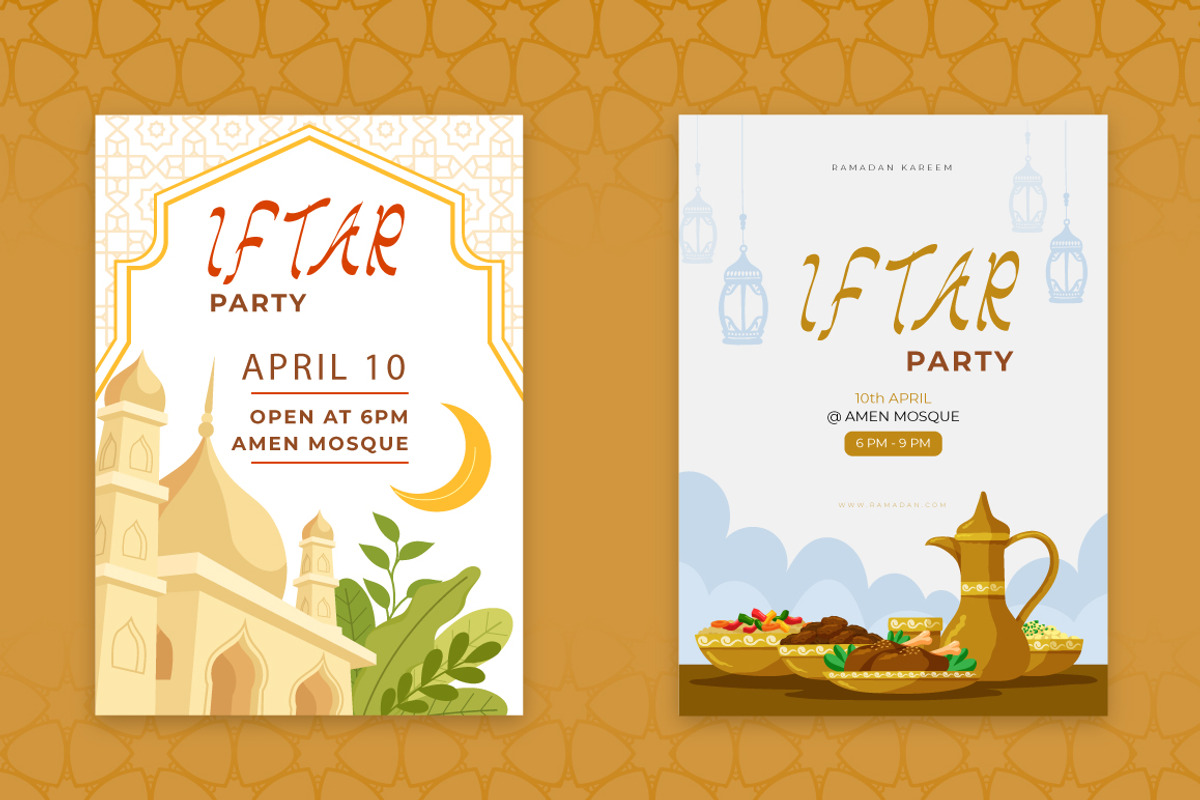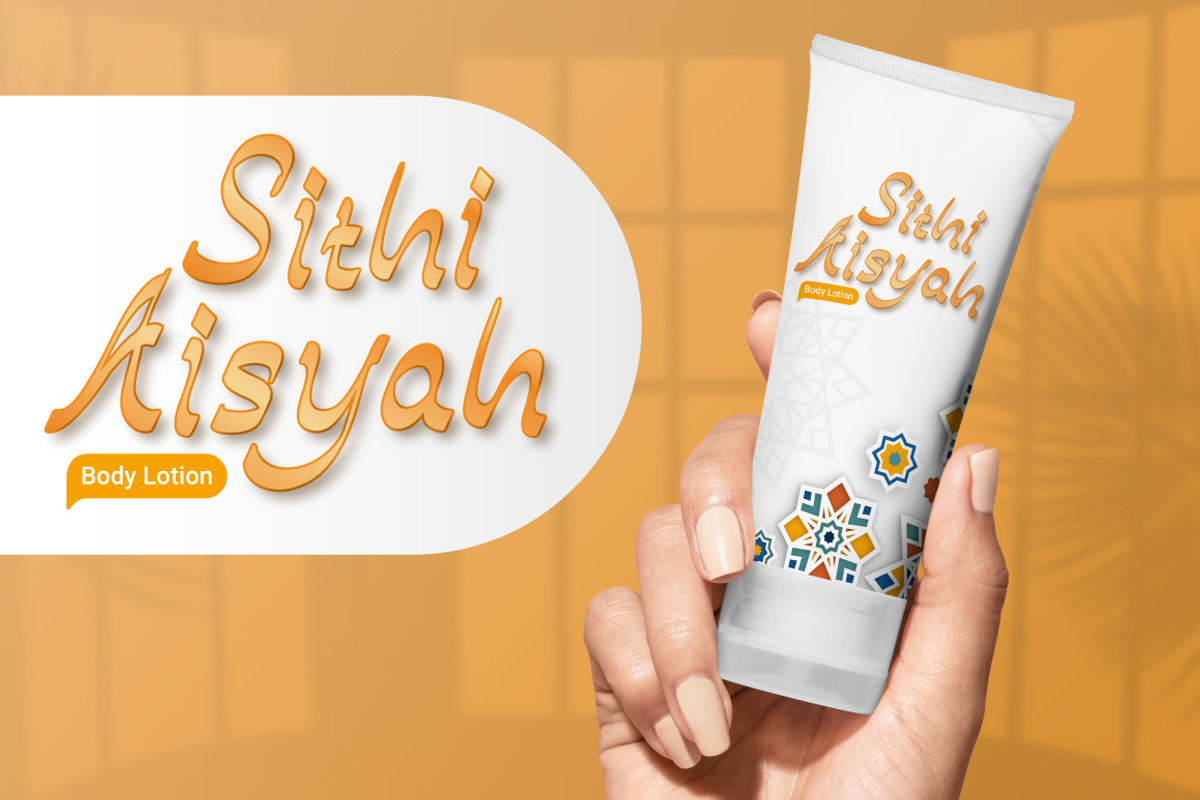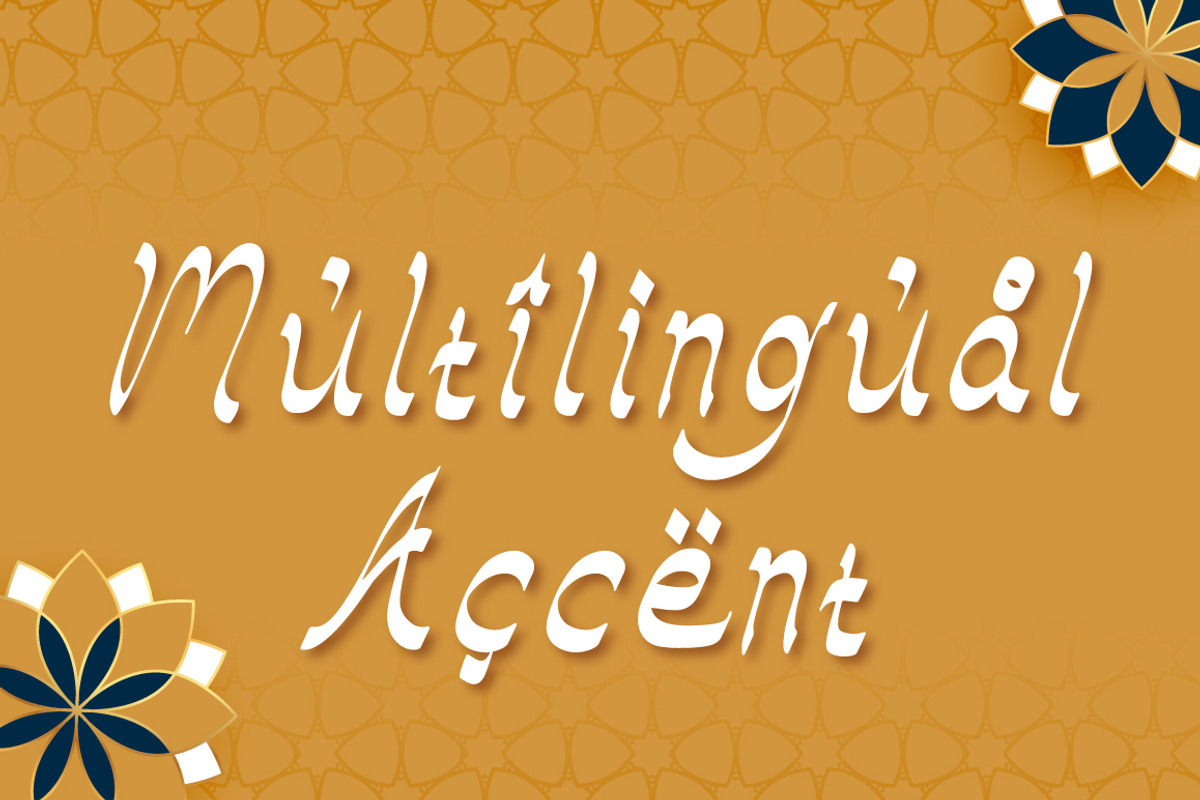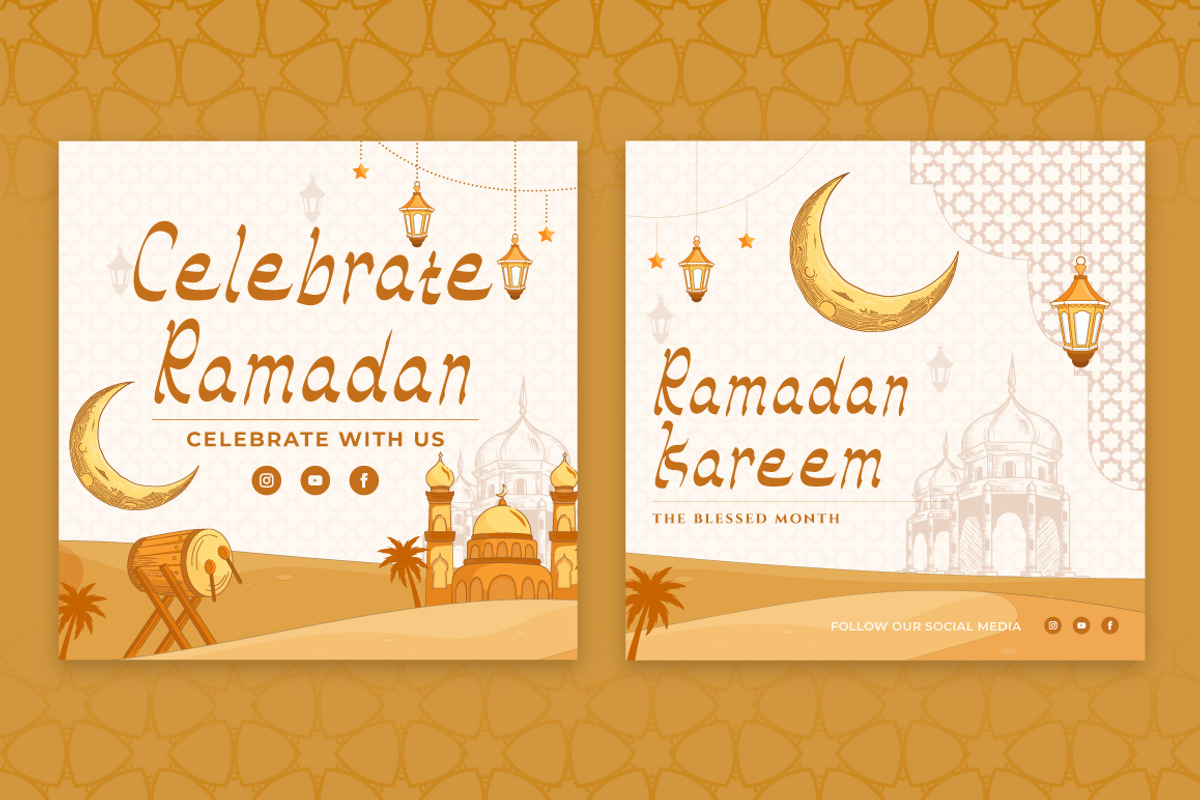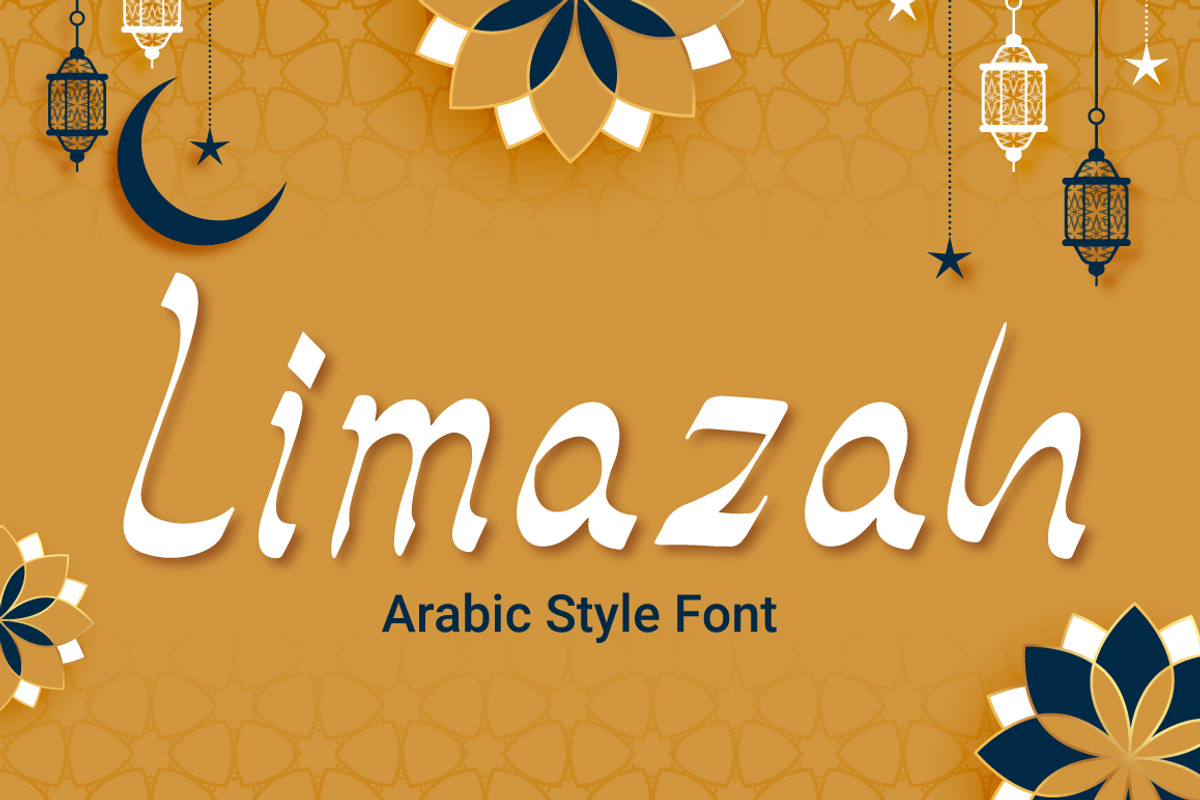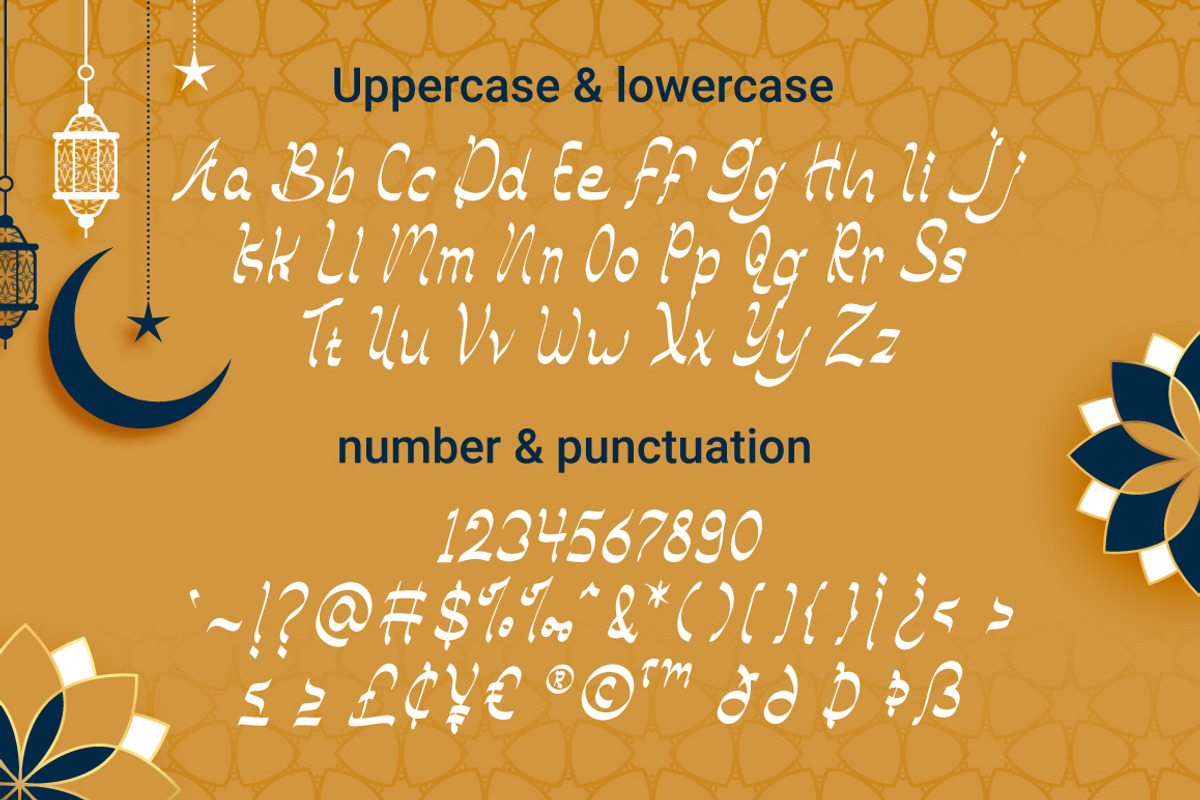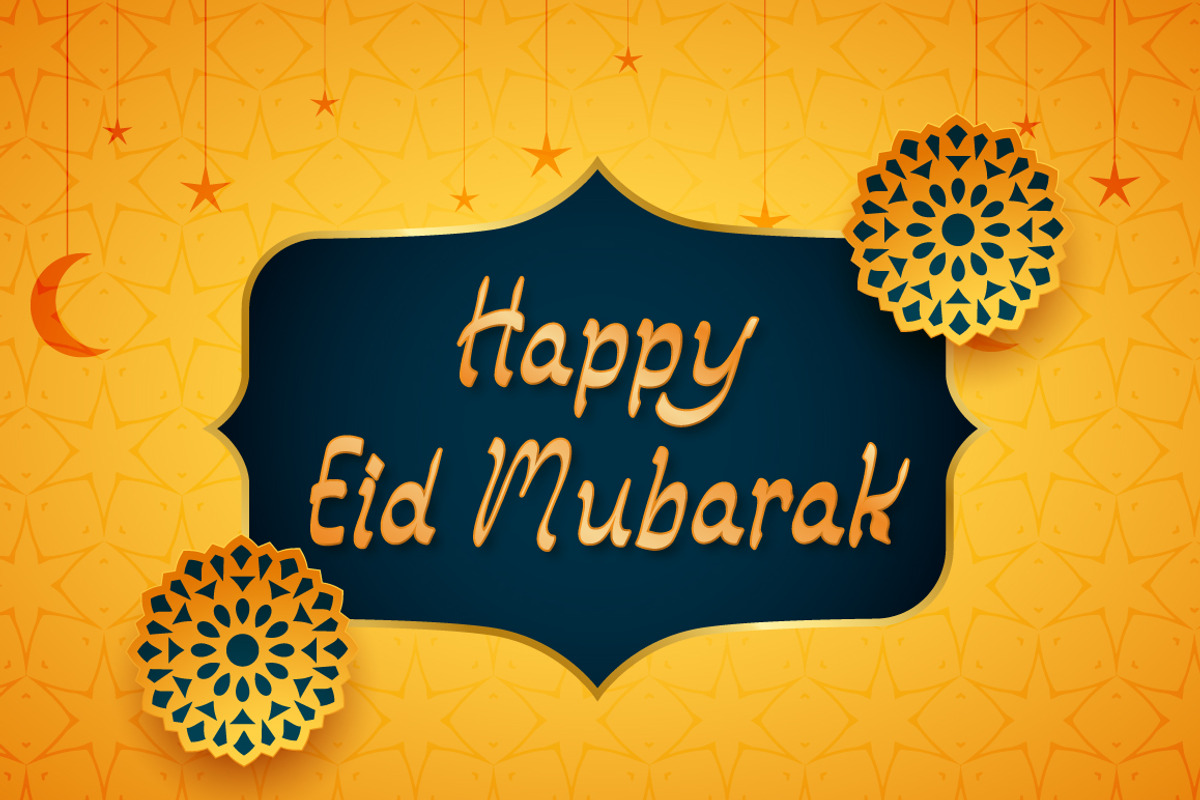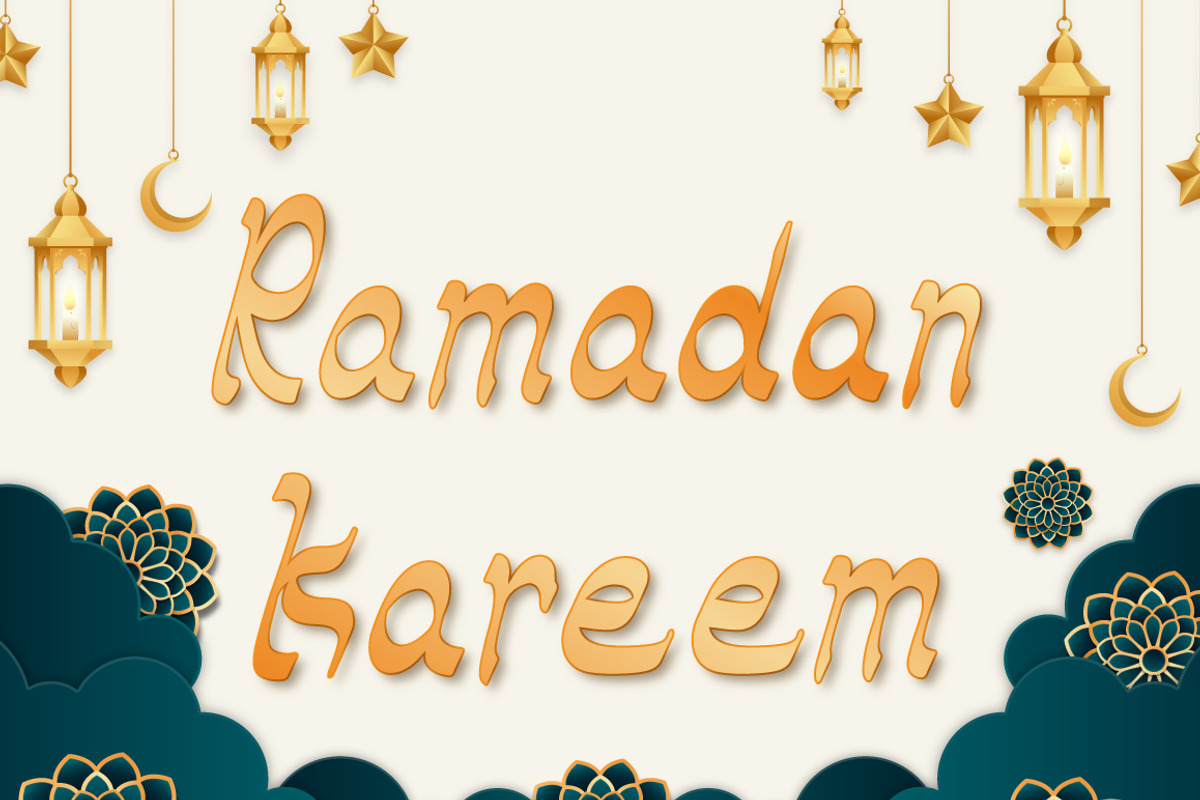
Limazah - Arabic Style Font
Limazah is an Arabic style font that is perfect for any Muslim project or product. This font has a beautiful, elegant design that is inspired by traditional Arabic calligraphy.
It is perfect for use in Ramadan themed designs, as well as any other design that requires a touch of Arabic flair. This digital product font is easy to use in any design software. It is perfect for creating stunning, professional designs that will stand out and make a statement. Whether you are designing for a business or personal project, Limazah is a must-have font for any designer.